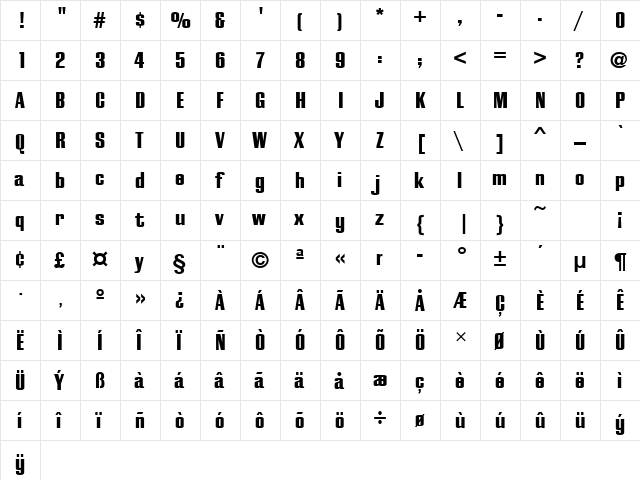
CaliforniaGroURWTBla Regular
CaliforniaGroURWTBla is a composed and adaptable typeface that performs quietly and consistently across a wide range of design contexts.